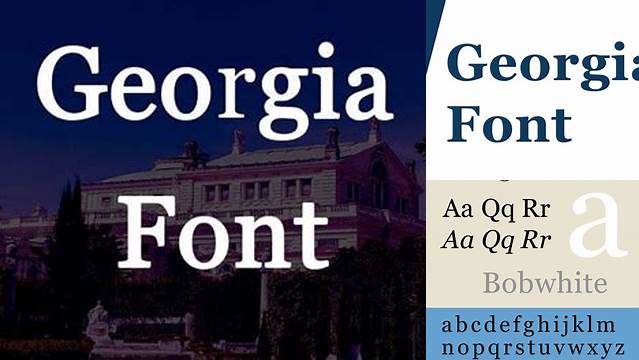
Hey everyone! Today, we're diving deep into the world of typography, specifically focusing on the classic and versatile Georgia font. Many of you are probably here because you're looking for a Georgia font free download, and guess what? You've come to the right place! We'll explore everything you need to know about this timeless typeface, where to find it for free, and how to use it effectively. So, grab your favorite drink, sit back, and let's get started! This guide is designed to be your go-to resource for all things Georgia font, ensuring you can easily and legally access this beautiful font for your projects. We'll cover its history, design characteristics, and practical applications. Whether you're a designer, a student, or simply someone who appreciates good typography, this article will equip you with all the knowledge you need about the Georgia font free download process and its usage. Let's make sure you understand every aspect of this process so that you don't miss any important step.
1. The Origins of Georgia Font: A Brief History
Let's rewind a bit and talk about the history of the Georgia font. This font, designed by Matthew Carter and released in 1993, was specifically created for Microsoft. The primary goal was to create a typeface that was easy to read on computer screens, especially at smaller sizes. Back in the early days of the internet, screen resolutions were not as sharp as they are today, making it crucial to have fonts that were clear and legible. Georgia was designed with this in mind, featuring robust serifs and a generous x-height. The serifs are the small strokes at the end of the letters, and the x-height refers to the height of the lowercase 'x'. A larger x-height and prominent serifs improve readability. The design of Georgia font was heavily influenced by the Scotch Roman typefaces of the 19th century, giving it a classic and elegant feel. Because it was designed for screen readability, it quickly became a favorite for web design and general use. The success of Georgia lies in its blend of functionality and aesthetics. It's not just about being readable; it's also about looking good. The font’s design ensures that it remains clear and professional, whether used in large headings or small body text. The history is super important because it influences how we use this font in different projects.
1.1. Matthew Carter and His Contribution
Matthew Carter is a renowned typeface designer with an impressive portfolio of fonts, and his contribution to the design industry is immeasurable. His work on Georgia is a testament to his expertise in creating typefaces that are both functional and visually appealing. Carter's understanding of typography and its importance in communication is evident in every curve and stroke of the Georgia font. His ability to balance readability with aesthetic qualities has made Georgia one of the most widely used typefaces globally. Carter’s design process often involves meticulous attention to detail, ensuring that each character is perfectly crafted for its intended purpose. Georgia, like his other fonts, reflects this careful approach. His contributions go beyond the font itself; he's influenced the entire design industry with his work. His careful approach and dedication to creating a readable and aesthetically pleasing font has left a lasting legacy.
2. Key Characteristics of Georgia Font
The Georgia font is not just a font; it's an experience. Its key characteristics are what make it stand out. This font is renowned for its readability, particularly on screens. Its design features, like robust serifs, contribute significantly to its clarity, especially at smaller sizes. This is a crucial aspect when designing for websites or other digital platforms. The generous x-height of Georgia also plays a vital role in its readability. A larger x-height means that the lowercase letters are taller relative to the uppercase letters, making the text easier to scan and read quickly. Georgia's design ensures that it maintains clarity and professionalism, whether used in large headings or small body text. Its balanced design offers a harmonious blend of functionality and aesthetics. The careful design provides a clear and consistent reading experience. It is designed to be both legible and pleasing to the eye, making it a great choice for various applications. This versatility makes Georgia font an excellent option for various projects. Let's look more into this!
2.1. Serif Styles and Their Impact
Serif fonts like Georgia font have small strokes (serifs) at the end of the letters. The serif styles in Georgia, like the strong, well-defined serifs, are a key element that makes the font so readable. These serifs help guide the eye across the text, making it easier to distinguish individual characters. The robust serifs in Georgia are especially effective on screens, as they help to clarify the letters even at low resolutions. The way the serifs are designed in Georgia influences the overall character of the font, making it both legible and aesthetically appealing. The design allows for better readability on digital screens, making Georgia a popular choice for websites and digital documents. This is a critical factor when choosing a font, as legibility is crucial for an effective design. Georgia font's serifs are not just decorative; they serve a functional purpose, contributing to a better reading experience. This is a significant benefit, especially when designing for online consumption.
2.2. Readability and Legibility Features
One of the main features of Georgia font is its superior readability and legibility. The features are specifically designed to enhance the ease with which text can be read and understood. The combination of strong serifs and a generous x-height ensures that the letters are distinct and easily recognizable, even at smaller sizes. This makes Georgia an excellent choice for body text in web pages, where readers often view content on a variety of devices with different screen resolutions. Its readability is a testament to the thoughtful design choices made by Matthew Carter. Georgia font's features make it ideal for both print and digital formats. The font’s clarity makes it an ideal choice for long-form content, such as articles and books. This font is designed to provide an optimal reading experience across various platforms and devices. The careful balance ensures that the font looks great and is super easy to read.
4. Practical Uses of Georgia Font in Design
The Georgia font isn't just a pretty face; it's a workhorse, especially in the world of design. Its readability and versatility make it a popular choice for various applications. From websites to print materials, it can adapt to different design needs. The classic design of Georgia ensures that your content looks professional. Its clean lines and easy-to-read characters make it a great option for body text. In web design, Georgia excels as a body font due to its legibility on screens. It's a solid choice for articles, blogs, and any other type of digital content where clarity is essential. This font is an excellent choice for print media. It’s easy to read in books, magazines, and brochures. Georgia also fits well in headings and subheadings, adding to a cohesive design. Its ability to maintain clarity across different sizes and formats is a significant advantage. The design also makes it useful for creating a consistent look.
4.1. Georgia Font in Web Design and Websites
Georgia font is a great choice in web design. Its readability is an asset, making it ideal for the body text of websites. Many websites use Georgia for articles, blog posts, and other content where legibility is vital. Georgia can improve user experience by making text easier to read. The font is clean and clear, which makes it a great option for different screen sizes. This is very important because it ensures that the content is accessible and readable on any device. Many designers choose Georgia for its professional look. This classic font ensures that your website looks polished and well-designed. The font's adaptability means that it can easily integrate into various design styles. If you want to enhance your website with great fonts, consider using Georgia. Its versatility ensures that your content looks great.
4.2. Georgia Font in Print Design: Books, Magazines, and More
Beyond the digital realm, Georgia font shines in print design. Its readability makes it perfect for books, magazines, and other printed materials. The font's robust serifs and clear design ensure that text is easy to read, even at smaller sizes. Georgia can add to a polished and professional look. This is critical in print design, where the reader's experience is dependent on the design. The legibility of Georgia makes it a great choice for long-form content, such as novels and academic papers. The font’s adaptability makes it a versatile choice. Georgia can be used in headings, subheadings, and body text, creating a consistent and pleasing visual hierarchy. Its timeless design makes it a great option for materials that need to look good for years to come. For print projects, Georgia offers clarity and style.
5. Tips for Using Georgia Font Effectively
To make the most of the Georgia font, there are some tips. Make sure you understand the design process and how to apply it. Consider the size of the font. Georgia is designed to be readable even at smaller sizes, so you can often use it in body text with good results. Another tip is to play around with the font weights. Georgia comes in a variety of weights. It includes regular, bold, italic, and bold italic. Experimenting with these weights can add emphasis and visual interest to your designs. Make sure you understand the spacing and kerning between characters. Proper spacing will make your text more readable and visually appealing. Remember that Georgia is versatile, but it may not be the best choice for every design. For creative projects, it is best to balance your project. Keep these tips in mind, and you’ll be well on your way to creating beautiful and effective designs using Georgia.
5.1. Font Size and Weight Considerations
When using the Georgia font, font size and weight are important. Georgia, being designed for screen readability, can be used at a range of sizes without losing its clarity. Typically, it's great for body text. You will need a larger size for headings. Experimenting with different font weights allows you to highlight important elements. Georgia comes with regular, bold, italic, and bold italic weights. These variations provide design flexibility, allowing you to emphasize specific words or sections. Weight considerations also help you establish a visual hierarchy. You can use bold for headings and subheadings, while regular can be for body text. The correct balance between font size and weight is crucial for making your design work. Choosing the correct size and weight will improve your project. These options are important if you want your project to have a professional look.
5.2. Pairing Georgia with Other Fonts
Pairing Georgia font with other fonts is an excellent way to create a dynamic and visually interesting design. It is important to choose fonts that complement Georgia. Try pairing Georgia with fonts that have a different character. When selecting a font pairing, make sure that it creates a strong contrast. You can experiment with different font styles and choose a font that is used for headings. Always consider the overall tone and style of your project when selecting font pairings. Some popular font pairings include pairing Georgia with a sans-serif font like Open Sans for a clean and modern look, or with a slab serif font like Roboto Slab for added emphasis. When you're pairing fonts, test your design on various devices. A good font pairing should improve the readability.
6. Georgia Font Alternatives and Comparisons
When looking for a Georgia font free download, you might consider exploring alternatives. There are a bunch of different fonts that have a similar design, such as Merriweather, Libre Baskerville, and PT Serif. These options provide a range of styles that mimic Georgia's readability and design. These are great options to look into. When comparing Georgia with alternatives, consider its features. Its readability, and the design of its serifs makes it unique. Also, consider the availability of font weights and styles. Georgia provides many options for you to create different designs. When choosing an alternative, consider your project. You may want to find the fonts' characters. The ideal alternative should create a design. Evaluating these factors will help you find the best font for your needs. The goal is to create designs with visual appeal. When deciding which fonts to use, it is best to consider which font will best improve your project.
6.1. Comparing Georgia to Similar Fonts in Design
When comparing the Georgia font to similar fonts, you can understand its unique qualities. For example, Merriweather offers a similar look and feel, and is designed to be readable. Georgia has a clear advantage. In this case, Georgia is an excellent option for the design. Consider the features and design options available for these fonts. Its design characteristics, like its serifs, make it distinct. It has a large x-height and provides great legibility. While alternatives may be similar, Georgia's readability is exceptional, especially at smaller sizes. Evaluate how each font performs in various contexts. This ensures that you're using the best font for your design needs. Georgia has a lasting appeal. Consider how each font style performs across different design types.
6.2. Advantages and Disadvantages of Georgia Font
Let's get real about the Georgia font! Its advantages include superior readability, especially on screens, making it a great choice for web design and digital content. The font's clear design ensures that the text is easy to read at different sizes. The font's versatility is another benefit. It works well in print design, which means that your project will come out great. Its widespread availability, as a standard font on many operating systems, makes it easy to access and use. The disadvantages include that it may not be the best choice for all design projects. This font's simple design may not be suitable for creative designs. The serifs, while enhancing readability, may not suit every aesthetic preference. The key to getting the best results is to consider the design style and audience. The goal is to choose the design that works the best for your project.
7. Advanced Techniques with Georgia Font
If you’re serious about your design game, it’s time to level up with Georgia font. Let's explore some advanced techniques you can use to create more polished and engaging designs. One technique is using font kerning. Kerning is the adjustment of space between individual characters. It can improve the overall look and readability of your text. Also, you can adjust the leading. Leading is the space between lines of text. Careful adjustment will improve the clarity and visual appeal of your text. Consider the color of your text. Use the color that will make the Georgia font appear. The color you choose impacts the readability and the aesthetics. You can create design by pairing Georgia with other fonts. These combinations can enhance the visual interest. Experiment with different weights and styles.
7.1. Kerning and Spacing Adjustments for Better Readability
Kerning and spacing are great for maximizing the impact of the Georgia font. Kerning refers to the adjustment of space between individual characters. Proper kerning can enhance the visual appearance of your text. Adjusting spacing improves readability. Leading, the space between lines of text, impacts readability. Experiment with leading to optimize the layout for your audience. When adjusting the kerning, focus on letters that might have awkward spacing. You can customize it to improve the balance. Kerning adjustments may need to be made depending on the font's size. These small tweaks will make a big difference in the font's design. The goal is to refine the readability of your designs. By focusing on these details, you can create more polished and reader-friendly designs.
7.2. Combining Georgia with Color and Backgrounds
Combining Georgia font with color and backgrounds can make your designs pop. The colors you choose can impact readability. Choose colors that improve the contrast. Consider using a light color like white. The background can also create a visual impact. Dark backgrounds make the text appear to be visible. Use these to make the text appear better. When choosing your design, ensure that the color scheme fits your style. Test your designs on different devices to ensure the best viewing experience. Experiment with different shades. You can use these techniques to create visually stunning projects.
8. Troubleshooting Common Issues with Georgia Font
Sometimes, things don't go as planned, and you might run into issues when using the Georgia font. When you are experiencing problems, it is best to troubleshoot them. If the font appears blurry or distorted, this might be because of poor rendering. Make sure you’re using a high-resolution display. Check your display settings to ensure the best font appearance. Another problem could be with the font not displaying correctly. Make sure the font is properly installed on your system. If the font has compatibility issues, make sure your program supports Georgia font. Always check your font's license for usage rights. This ensures that you are legally compliant. When you fix the issues, you can create great designs.
8.1. Font Rendering and Display Problems
When you encounter font rendering and display problems with Georgia font, there are steps you can take to fix it. If the font appears blurry or distorted, the rendering might be the issue. Ensure your display settings are optimized for clear text. Adjust the font smoothing settings to improve the appearance. Check for issues with screen resolution. The text might appear pixelated. Ensure that the program you’re using supports Georgia font. Sometimes, the font may not display correctly. Ensure the fonts are installed on your computer. You can uninstall and reinstall the fonts if the problem persists. By fixing these problems, you can achieve the best outcomes for your designs.
8.2. Ensuring Font Compatibility and Correct Installation
Ensuring font compatibility and a correct installation of Georgia font is essential for smooth design workflows. The first step is checking whether your design software supports the font. You can make sure that Georgia font is installed on your computer. You can also reinstall the font to refresh the files. Compatibility issues can arise if your design software is outdated. Update your software to the latest version. Also, check the font files you downloaded. Verify that they are not corrupted or missing. Proper installation and compatibility ensure that you can use Georgia font.
9. Future of Georgia Font and Typography Trends
The Georgia font has been around for decades. It continues to be used by designers. The future of the Georgia font is bright. It continues to be relevant. The font will be used in print design. It will continue to be used in digital design. Typography trends will change. The Georgia font will be around for a long time. It is useful for different purposes. As technology evolves, the way we use fonts will change. Georgia font's classic design makes it versatile. Designers will always find new ways to use Georgia.
9.1. Evolution of Typography and Its Impact on Georgia
Typography is constantly changing. Georgia font will adjust with trends. Design and technology both influence each other. Advances in technology have changed typography. The design will be used for the latest devices. Georgia's design makes it versatile. Georgia will always be a go-to font. Modern designs need readable fonts. The evolution of typography requires changes. New technology will influence design and its impact on Georgia.
9.2. Georgia Font in a Modern Design Landscape
Georgia font stays important in a world of design. Its readability is relevant. The font adapts to modern styles. The font is still used in modern projects. Georgia's design helps it stay current. With its classic style and clean lines, it can be used in different designs. The font is still used by designers today. Georgia is great for modern designs. It provides a great experience for the reader. Georgia is popular for a variety of purposes. The best thing is that Georgia is easy to use.
10. Conclusion: Your Go-To Guide for Georgia Font
So, there you have it, guys! This is your ultimate guide to the Georgia font free download. From its rich history and design characteristics to its practical uses and tips, we hope you have a clearer understanding of this awesome font. Remember, Georgia is a versatile and accessible font that can elevate your designs. Whether you’re working on a website, a print project, or anything in between, the Georgia font has you covered. Now go out there, explore, and create some amazing designs! And don’t forget to download Georgia font (legally, of course!). Happy designing!